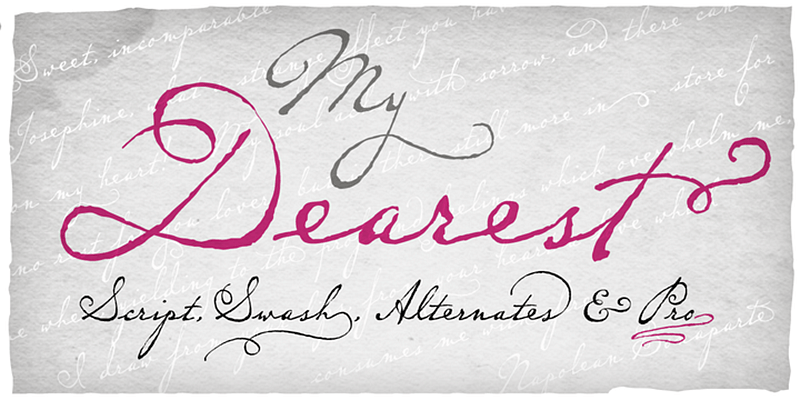
P22 Dearest specimen
P22 Dearest
P22 Dearest is a flowing script based on a handwritten 19th Century German book chronicling a history of the Middle Ages.